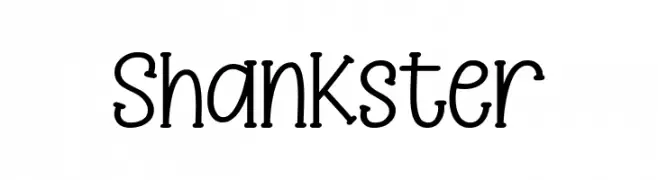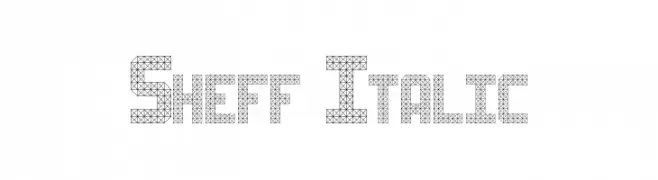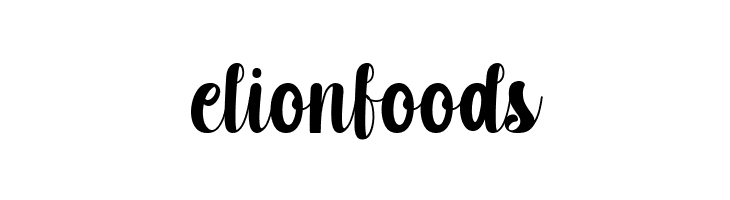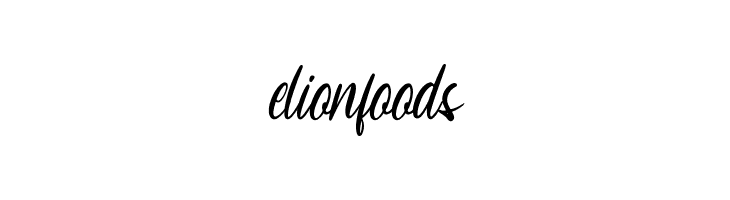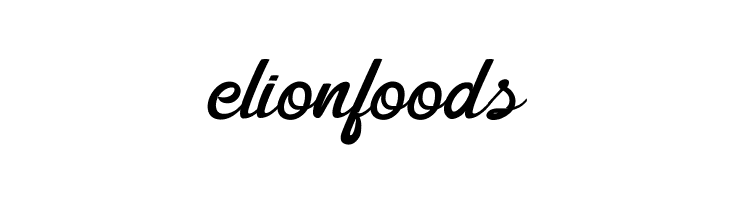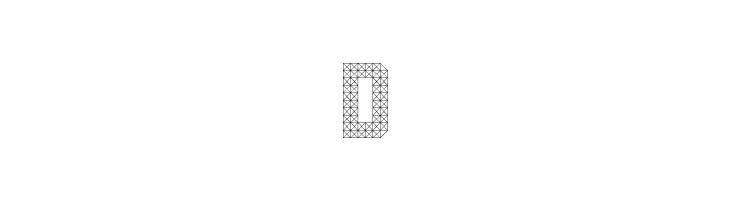
( Fonts by Dav studio )
A playful, handwritten font with rounded, whimsical characters.
( Tom Booth - www.badtown.co.uk/ )
A bold, geometric font with intricate triangular patterns.
( Tom Booth - www.badtown.co.uk/ )
A bold, geometric font with sharp, angular letterforms.
( Tom Booth - www.badtown.co.uk/ )
A bold, geometric font with a triangular mesh pattern, ideal for decorative use.
A dynamic and elegant script font with fluid, cursive letterforms.
A bold, expressive script font with flowing, cursive letterforms and high contrast strokes.
A classic, elegant script font with flowing cursive letterforms.